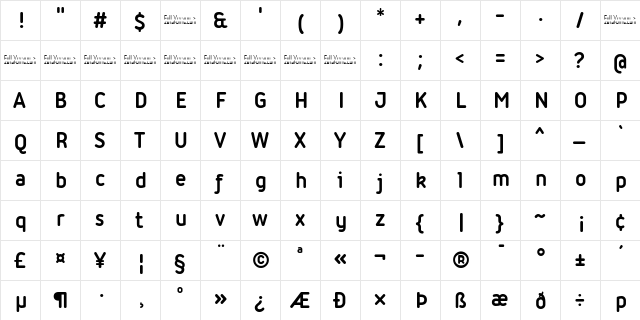
Iconic Trial Bold
| Foundry | Zetafonts |
| Designer | Francesco Canovaro |
Design Context for Iconic Trial Typeface
Iconic Trial is a composed and adaptable typeface that performs quietly and consistently across a wide range of design contexts. Its bold stroke weight gives it real presence on the page.